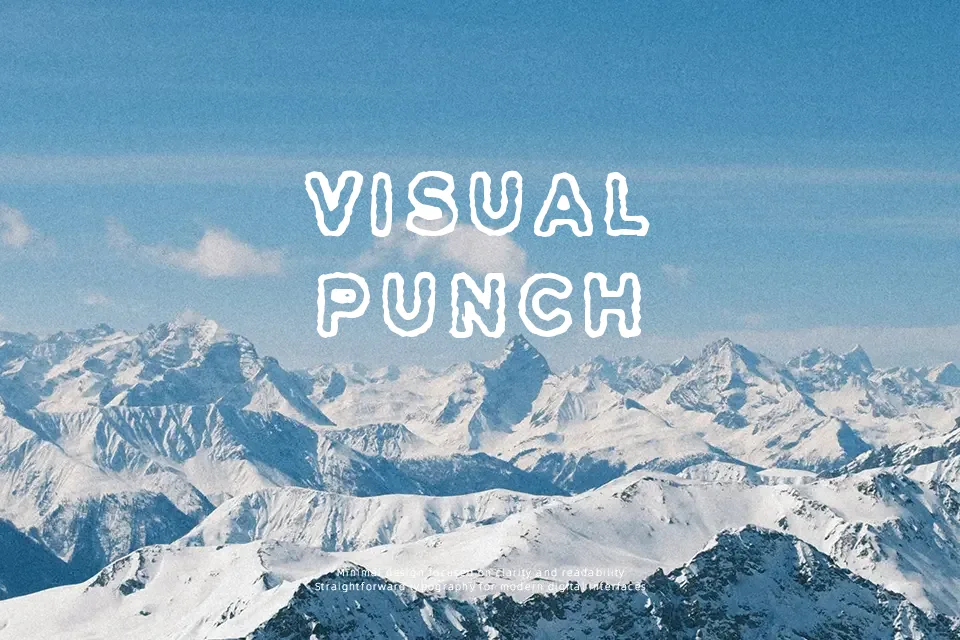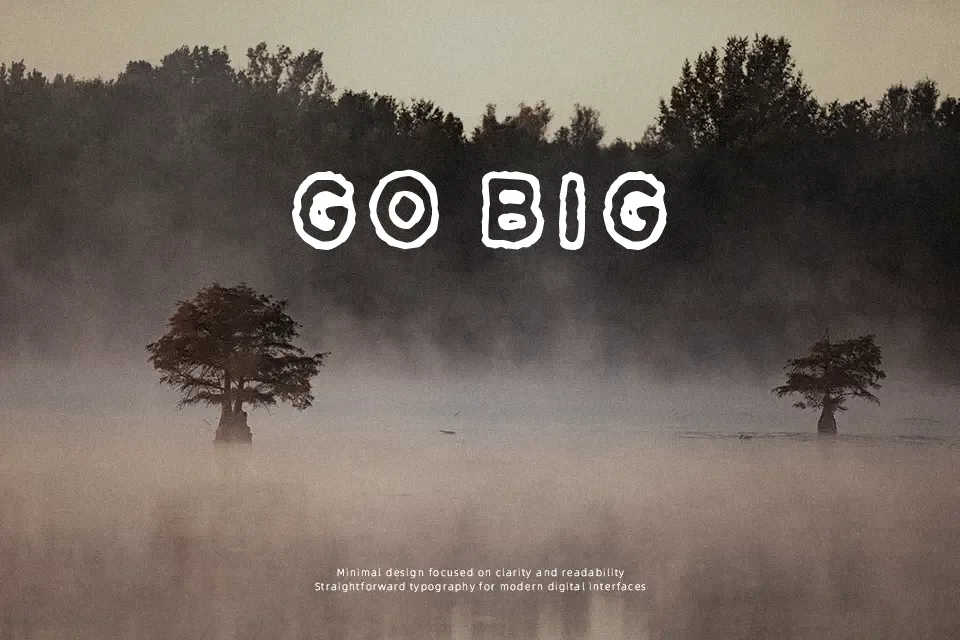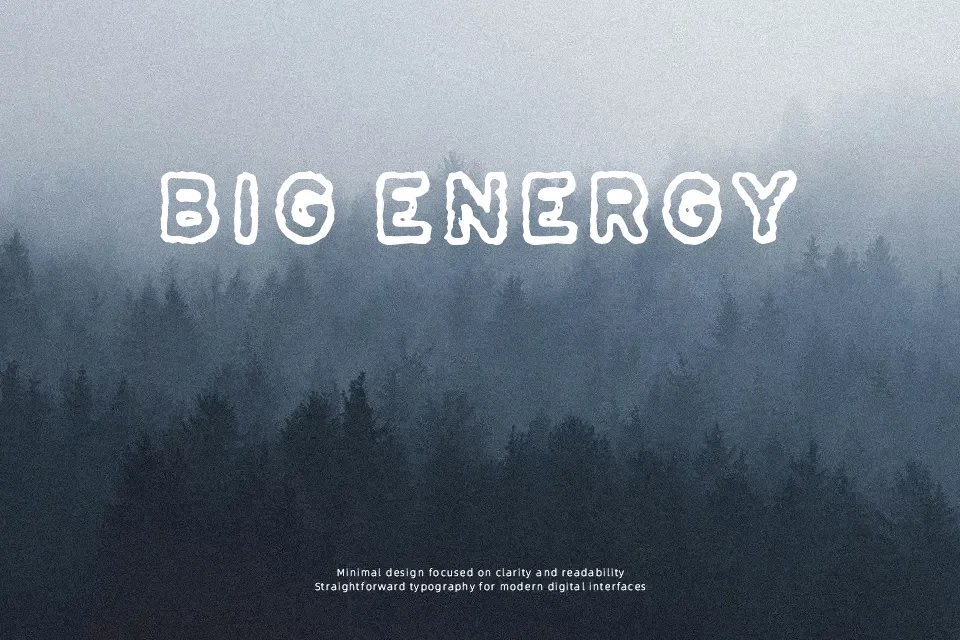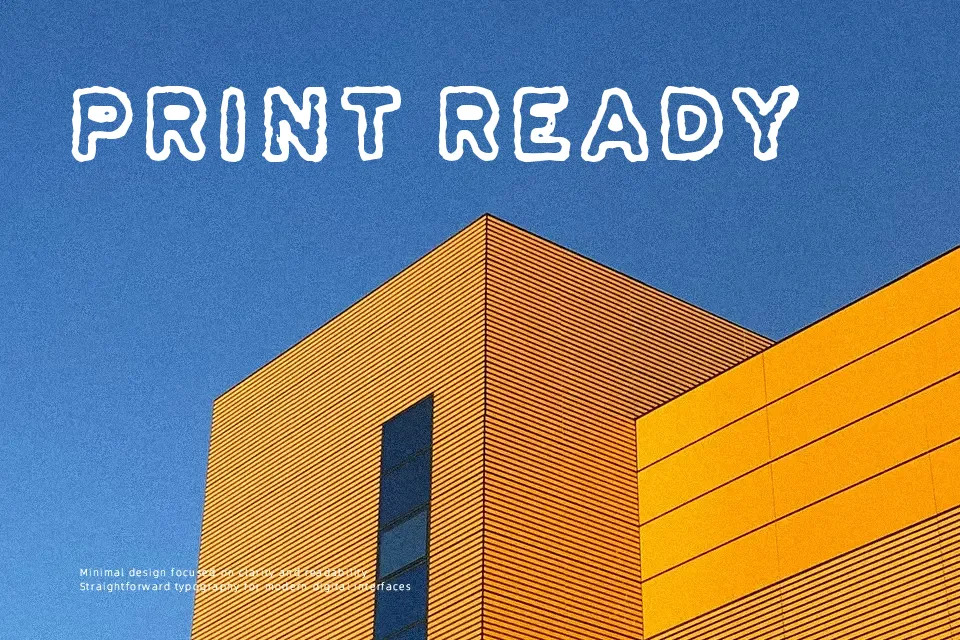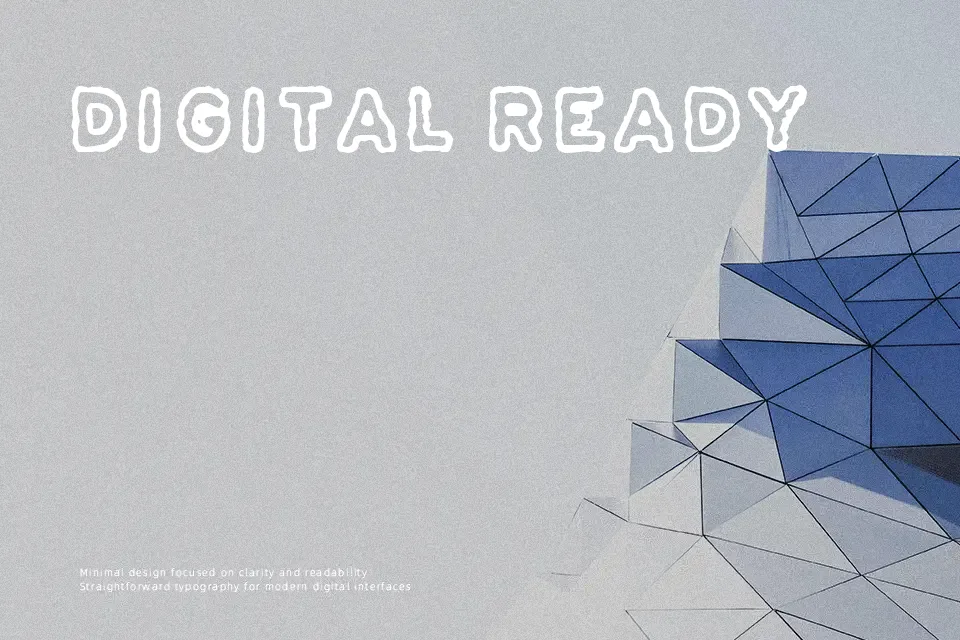
Osasto 329 Suljettu Font
Designed by Juha Korhonen
Osasto 329 Suljettu Font uses thick rounded outlines to build dense, highly graphic letterforms. The characters have broad proportions, consistent heavy strokes, and enclosed interior details that create a strong silhouette in short words. Spacing appears compact but remains orderly enough for large headlines and label-style compositions. Uppercase, lowercase, numerals, and visible punctuation follow the same substantial outlined treatment. The font reads most clearly when given room and scale in a layout. At smaller sizes, its inner outlines and dense shapes can become difficult to separate, making it less comfortable for extended text.
Best For: music event posters,streetwear graphics,album cover titles,large product labels
Perfect for fashion, logo, and music, with a bold and decorative style.